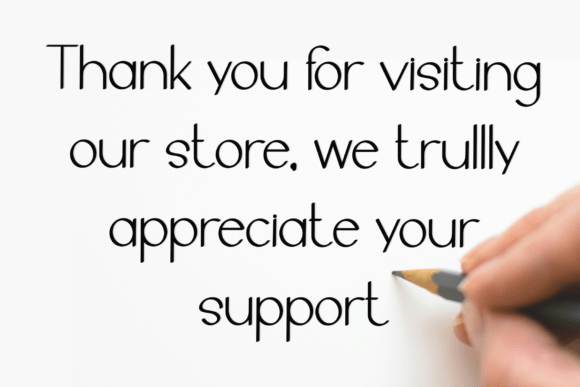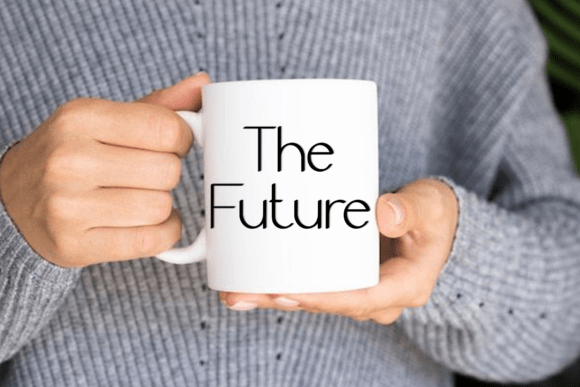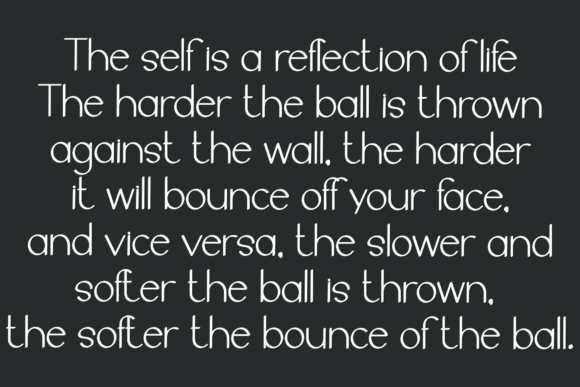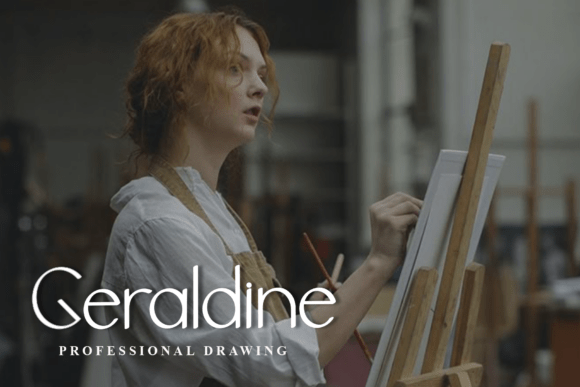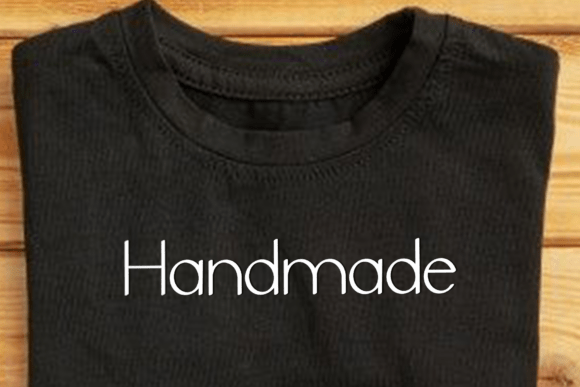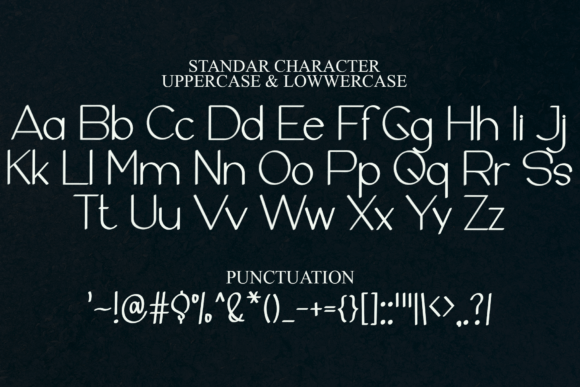
Discover the Magic of Forest Font
You know that feeling when you’re brainstorming ideas for a new project and suddenly, a spark of creativity hits you? It’s like the whole world comes alive with possibilities. For designers, this moment is precious, and the right tools can make all the difference. That’s where Forest Font comes in – a charming, hand-drawn typeface that brings warmth and friendliness to any design.
Forest Font is perfect for personal projects, invitations, and social media graphics where you want to convey a relaxed and approachable feel. Its round, playful strokes create a sense of joy and playfulness, making it a valuable addition to any designer’s toolkit. With its standard PUA Encoded glyphs, Forest Font is compatible with a range of application engines, from Adobe Photoshop to Canva, making it a versatile choice for designers of all levels.
Forest Font Key Features
- Unique Characteristics: Forest Font features a unique blend of natural and organic elements, with intricate details and textures that evoke a sense of the natural world.
Forest Font Review
Overall, I’m quite impressed with the Forest Font. It has a unique and refreshing vibe that’s perfect for nature-inspired designs.
Here are some things that really stand out to me:
- ✨ Beautiful script-like qualities that give it a handwritten feel, making it perfect for quotes, titles, or invitations.
- ✨ The varying letterforms and subtle texture add depth and visual interest, making it a great choice for body text or headings.
- ✨ The font is highly legible, even at small sizes, which is a must-have for any font.
- ⚠️ Limited character set, which may be a problem for languages that require a wide range of characters.
- ⚠️ Not as suitable for bold or italic text, as the font’s unique qualities can get lost in these styles.
- ⚠️ May not be the best choice for very formal or professional designs, as its whimsical nature may not be suitable for all audiences.
Overall, I’d highly recommend the Forest Font for anyone looking for a unique and visually appealing font for their next project. Just be mindful of its limitations and use it in the right context.
Tips for Getting the Most Out of Forest Font
To get the most out of Forest Font, try using it in combination with natural imagery and earthy colors to create a cohesive and harmonious design. Experiment with different font sizes and styles to add depth and visual interest to your design.
Forest Font is commonly used in designs related to nature, outdoor activities, and environmental themes. It’s also suitable for designs that require a rustic or earthy feel, such as branding for outdoor gear companies or environmental organizations.